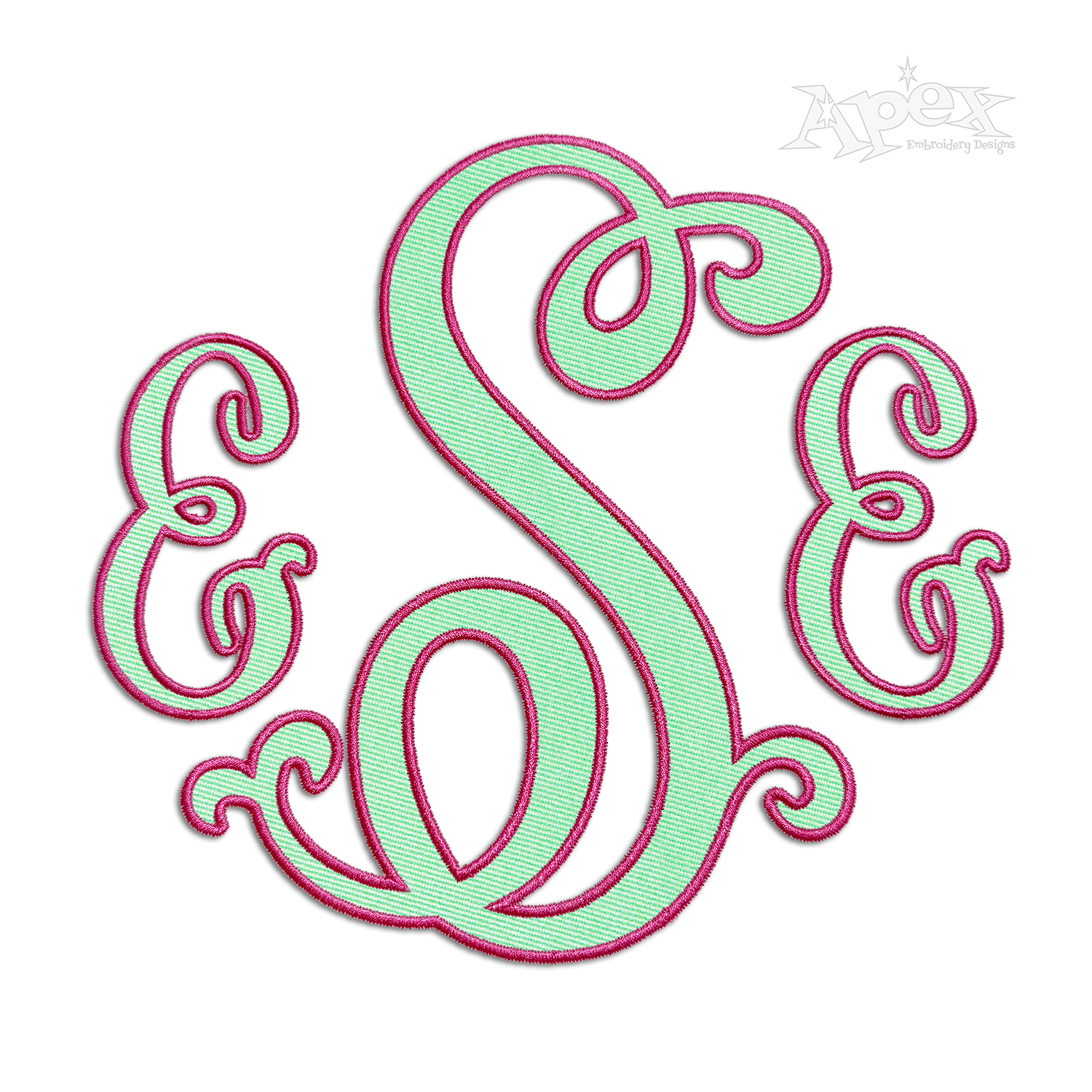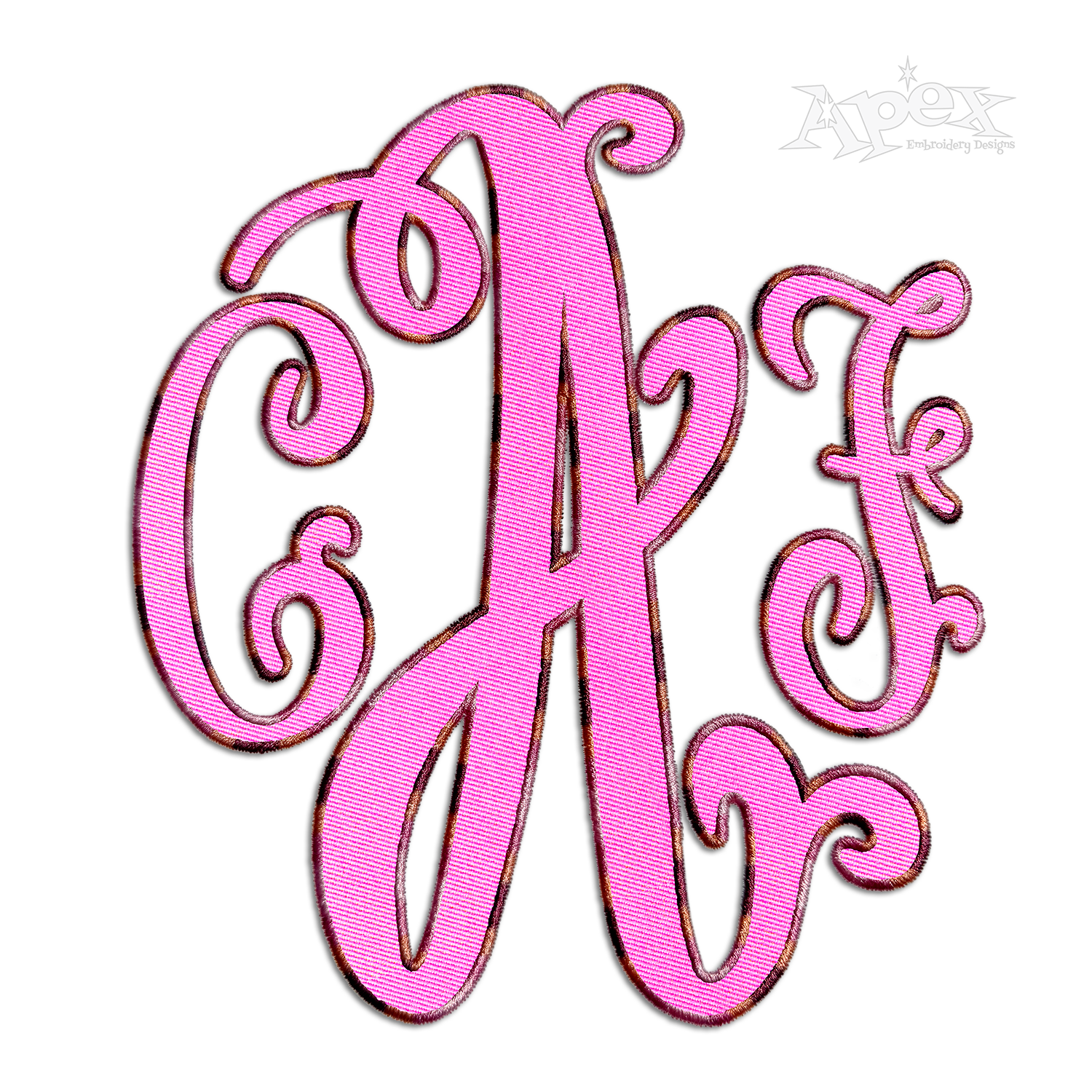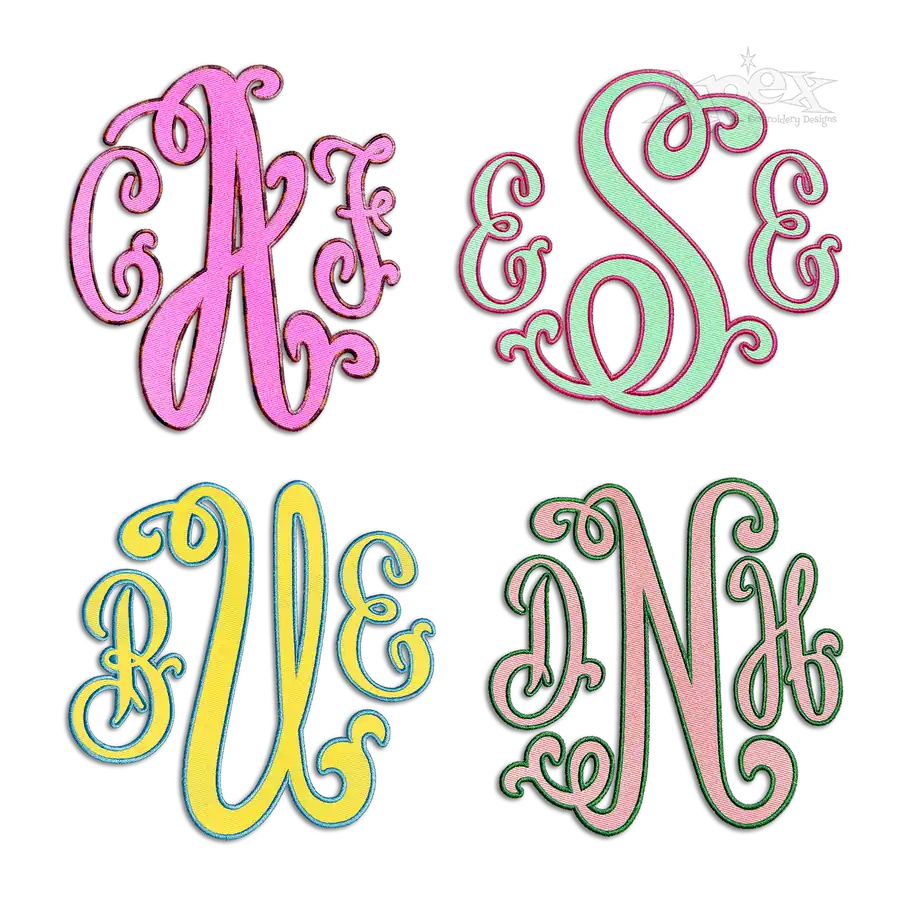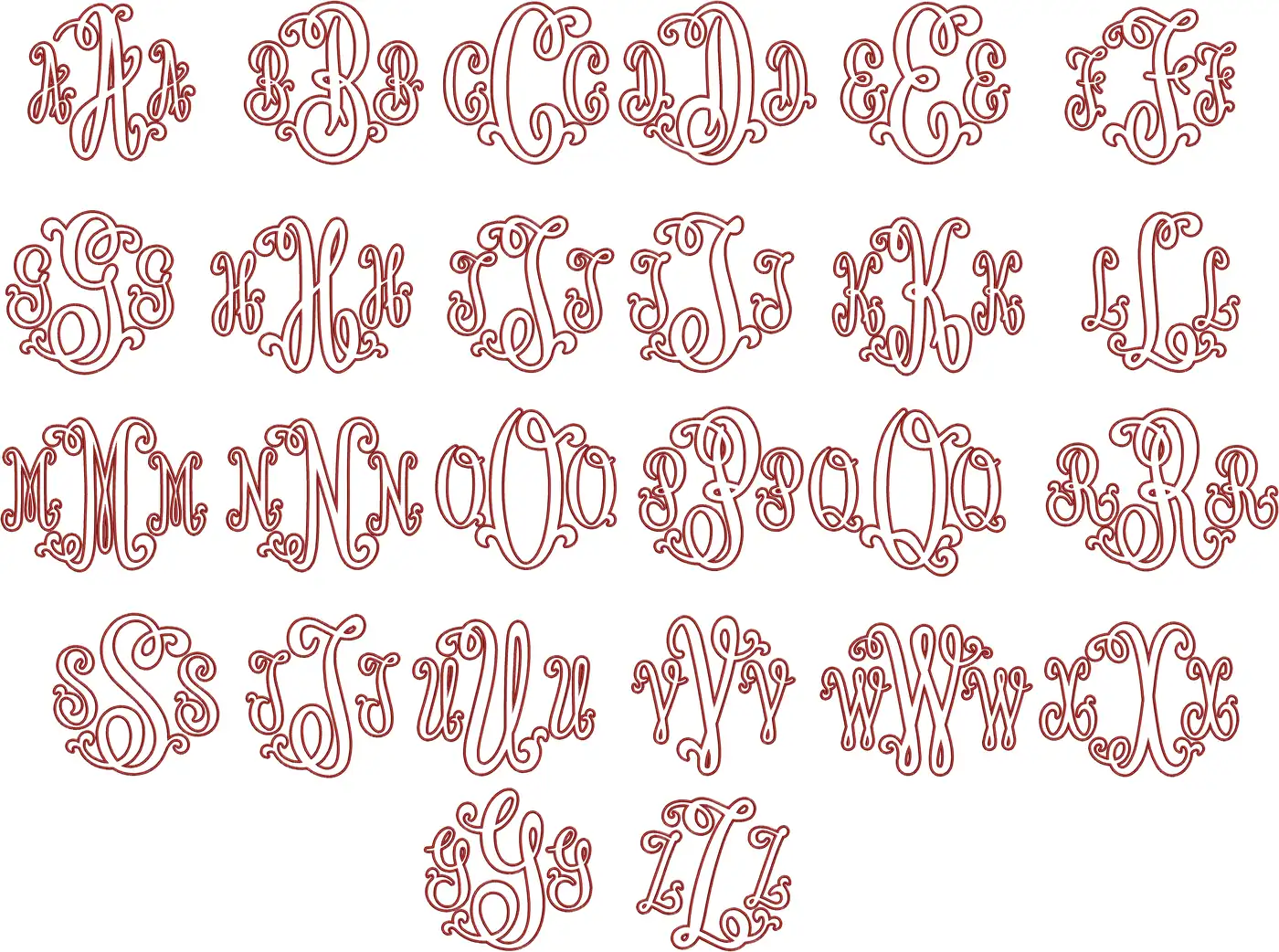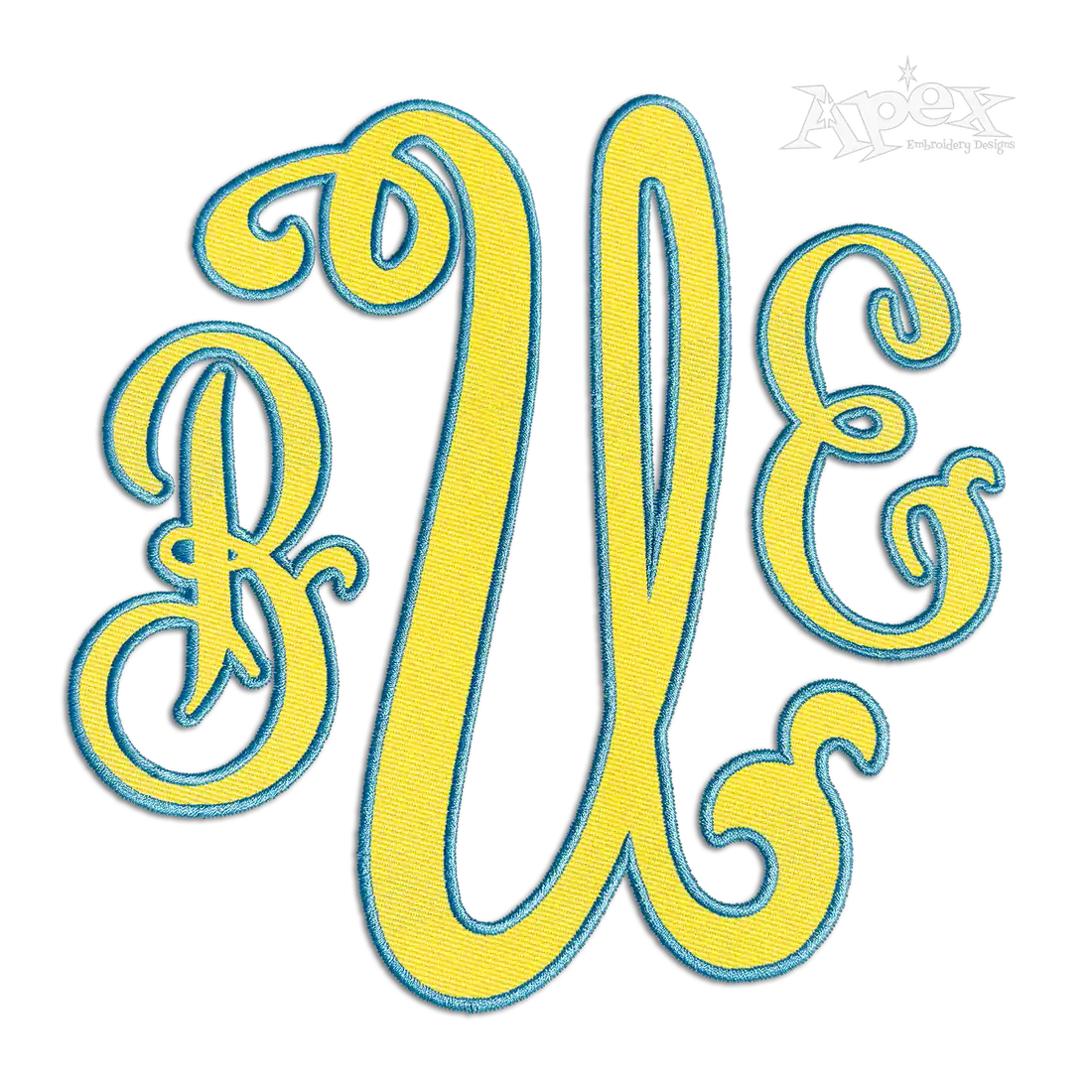
Suzanne Curlz Monogram Applique Embroidery Font
There is an undeniable joy in digitizing a letterform that refuses to take itself too seriously, and our Suzanne Curlz Monogram Applique captures that effervescent spirit in every buoyant curve. Designed for makers who want to blend vibrant fabric prints with playful typographic movement, this applique monogram turns initials into lively centerpieces. Each letter dances with curly flourishes, spiral serifs, and generous open apertures meant to showcase favorite calicos, seersuckers, and plush velvets. Framed by a silky, high-density satin perimeter, it delivers that polished boutique finish that makes everyday keepsakes feel extraordinary.
Project Ideas for Suzanne Curlz Monogram Applique
- Boutique Childrenswear: Create vibrant milestone birthday shirts, sunsuits, and personalized twirl dresses using bright gingham or ditsy floral fabrics.
- Heirloom Nursery Linens: Stitch an oversized 8" or 10" initial into the center of a baby quilt, personalized crib pillow, or soft minky receiving blanket.
- Playful Beach & Pool Gear: Personalize heavy canvas boat totes, oversized striped beach towels, and weekend duffels with bold 12" statement monograms.
- Personalized Gifting: Fashion bespoke cosmetic cases, back-to-school backpack patches, and personalized slumber party robes for an unforgettable personal touch.
To maximize the visual balance of these whimsical swirls, consider the following layout tips:
- Center Chest Placement: Position 4" to 5" letters squarely across the chest on children's crewnecks, tees, and pullover sweaters.
- Diagonal Corner Float: For waffle-weave baby blankets or linen play mats, stitch a 6" or 7" monogram 3 to 4 inches inward from the lower right corner along a 45-degree diagonal.
- Maximized Center Tote Layout: Use the 10" or 12" sizes centered between the handles of durable canvas tote bags to create an eye-catching, high-end retail aesthetic.
- Nursery Storage Accents: Frame fabric storage bins and toy baskets by stitching directly on the front panel before assembly, using a medium 5" or 6" size for effortless legibility across the room.
Suzanne Curlz Monogram Applique Craft & Letterform Details
The beauty of the Suzanne Curlz alphabet lies in its balance of whimsical lines and meticulous structural engineering. Digitizing open-applique shapes with winding loops requires special consideration: every curve has been engineered with a precise placement guide, followed by a sturdy, staggered tack-down stitch designed to hold delicate applique fabrics securely before trimming. We carefully programmed the satin stitch border to follow the organic flow of the spirals, varying the stitch angle gradually around the hairpin turns. This meticulous attention prevents thread bunching, softens interior corners, and guarantees a smooth, lustrous edge that cleanly wraps raw fabric edges for lifelong durability through countless washes.